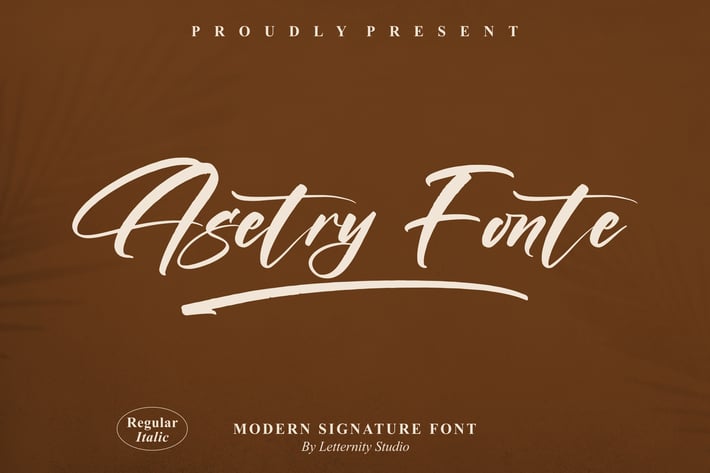
Asetry Fonte Modern Signature Font
Asetry Fonte is a stylish modern signature font that blends elegance and functionality, designed to elevate your creative projects. With its flowing strokes and contemporary feel, this font is ideal for digital and print applications. It adds a sophisticated touch to your visuals, making your branding and designs look more professional. This font comes in Regular and Italic styles, offering versatility for various needs. Perfect for logos, invitations, posters, and social media content.
+ Modern signature style
+ Includes Regular & Italic
+ Smooth, elegant strokes
+ Versatile for branding and creative projects
+ Works for both digital and print
+ Posters
+ Social media content
+ Branding and logo design
+ Invitations and greeting cards
+ Personal or commercial projects
Bring a touch of sophistication to your projects with Asetry Fonte – the perfect blend of elegance and modern style!